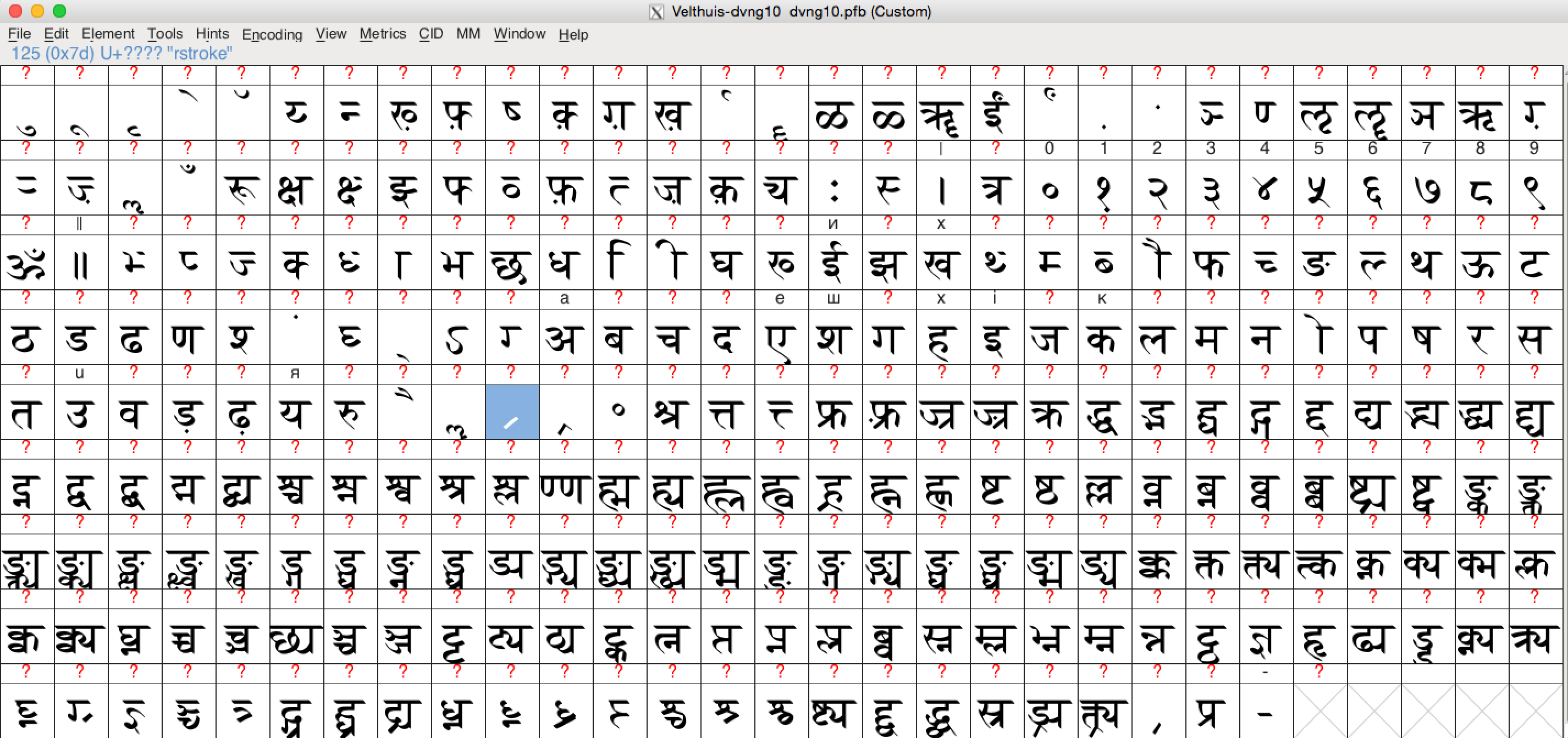
Vedic Style Fonts
Vedic Style Fonts. The virama is needed between two consonants. Download the selected sanskrit font.
Before moving ahead, let’s have a look on the appearance of this font. Sanskrit text is devanagari font specially targeting the typesetting of sanskrit texts in a traditional style. These fonts uses english characters to produce kannada script.
The Fontographer Has To Undertake A Detailed Study Of Both The Manuscript As Well As Metal Type Variants And Finally Arrive At A Font, Which Is Representative Of Its Age And Is At The Same Time Visually Appealing.
This Typeface Can Be Used For Scientific, And Also Religious Sanskrit Texts.
S anskrit ( संस्कृतम् saṃskṛtam [sə̃skɹ̩t̪əm], originally संस्कृता वाक् saṃskṛtā vāk, refined speech) is a historical. Copy the font from the extracted folder and paste it into the fonts folder. The virama is needed between two consonants.